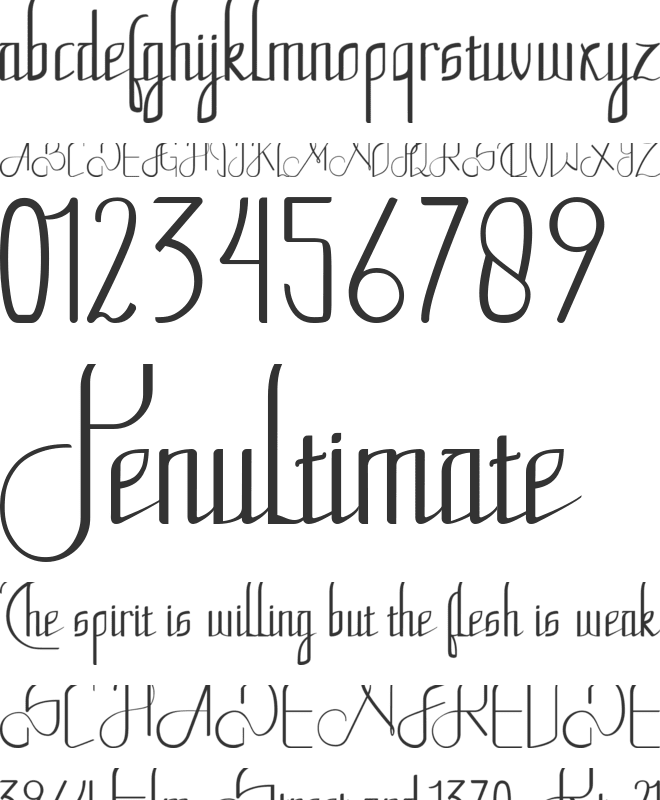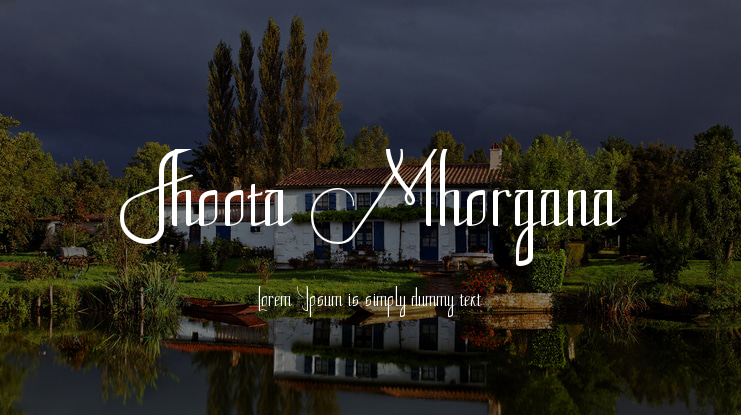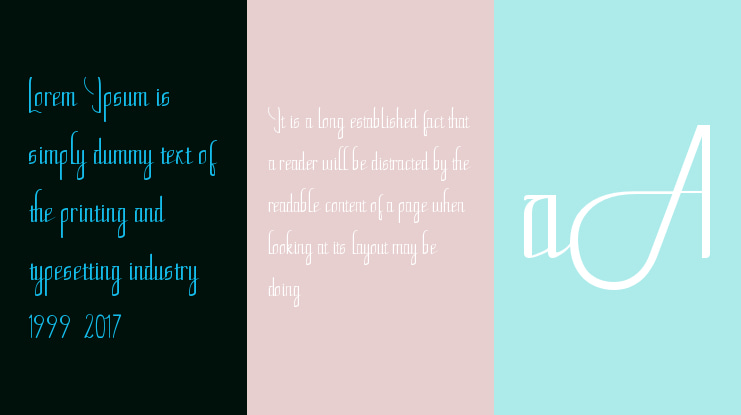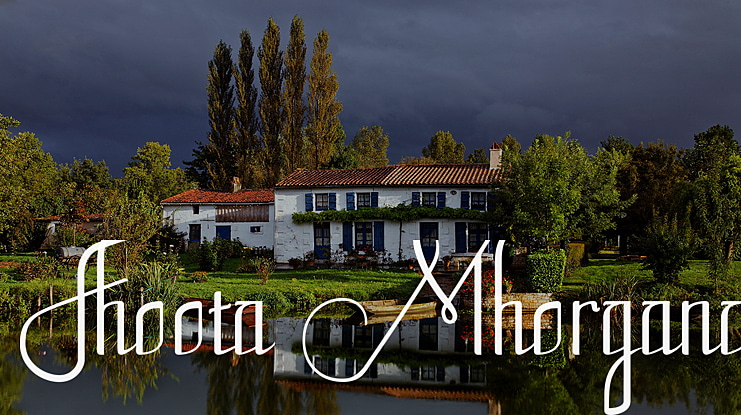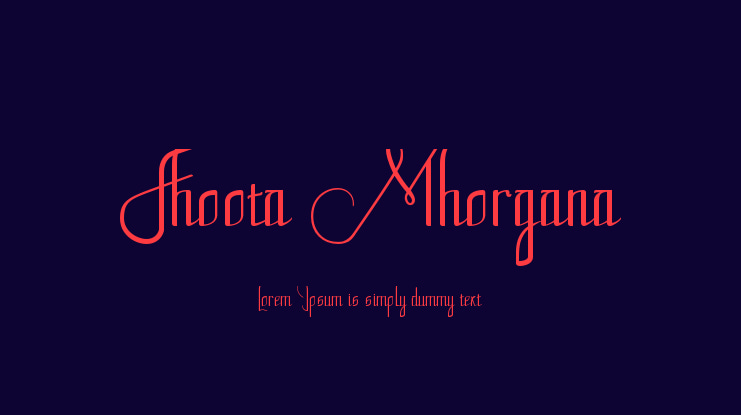
Fhoota Mhorgana is a kind handwriting with a hand stroke to show the characteristics of a brand. This fonts have been added with 199 glyphs, 203 characters and some ligatures. This font is perfect for logos, clothing, stationery, magazines, menus, books, invitations, greeting cards, packaging, labels,
clothing, marketing, business cards, etc.